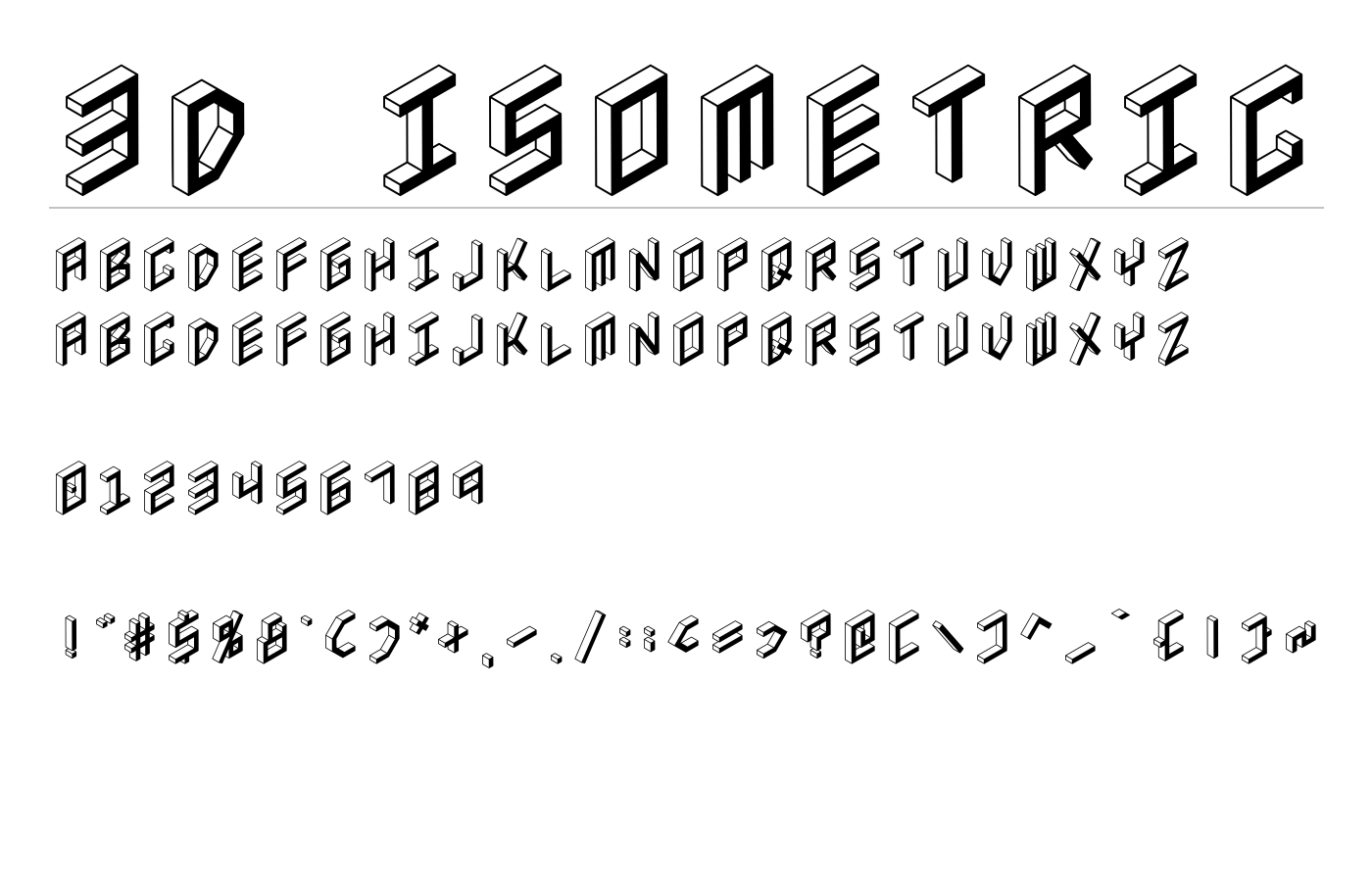
3D Isometric Font is a bold, uppercase sans serif typeface featuring a striking three-dimensional, isometric perspective that gives each character a geometric, block-like appearance. Its clean lines and sharp edges convey a modern, technical, and playful personality, making it ideal for eye-catching headlines, logos, packaging, or creative posters where a futuristic or architectural vibe is desired. The font's unique 3D effect works well for brands and designs seeking a visually dynamic and innovative look.
3D Isometric Font
About 3D Isometric Font
| Font family | 3D Isometric Font |
| Designer | GGBotNet |